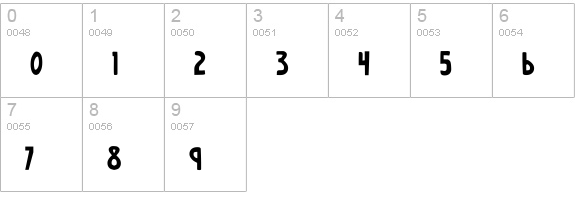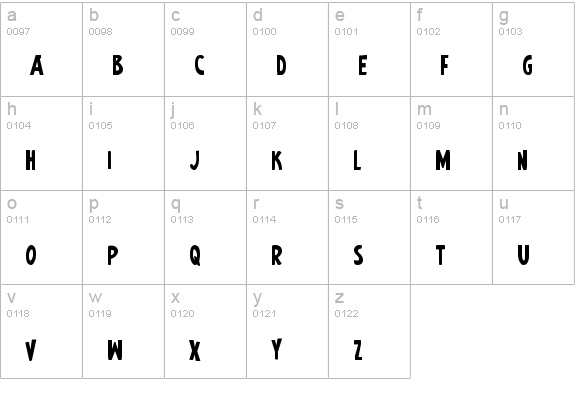
Earth's Mightiest Bold is a strong, high-contrast variant in the Earth's typeface family \xE2\x80\x94 well suited to headlines, attention-grabbing titles, and strong calls-to-action.
Introducing Earth's Mightiest Bold font, a powerful and commanding typeface that exudes confidence and strength. Designed for those who dare to make a bold statement, this font captures the essence of power and resilience. Earth's Mightiest Bold font is perfect for a variety of design projects, whether it be for headlines, logos, posters, or branding. Its bold and captivating letterforms demand attention and leave a lasting impression on any viewer. What sets Earth's Mightiest Bold font apart is not just its striking aesthetics, but also its accessibility. We believe that creativity should be free, and that's why Earth's Mightiest Bold font is freely available to download at FontsMarket.com. We want to empower designers, artists, and creatives of all kinds to unleash their innovative ideas without any limitations. With Earth's Mightiest Bold font, you can communicate your message with confidence and impact. Its bold strokes and strong presence ensure that your words will be noticed and remembered. Whether you're designing a superhero-themed project, an action-packed advertisement, or anything that demands attention, this font will be your ultimate weapon. So, why settle for ordinary when you can unleash the power of Earth's Mightiest Bold font? Download it now for free at FontsMarket.com and let your creativity soar to new heights. Embrace the bold, make a statement, and leave a lasting impression with Earth's Mightiest Bold font.